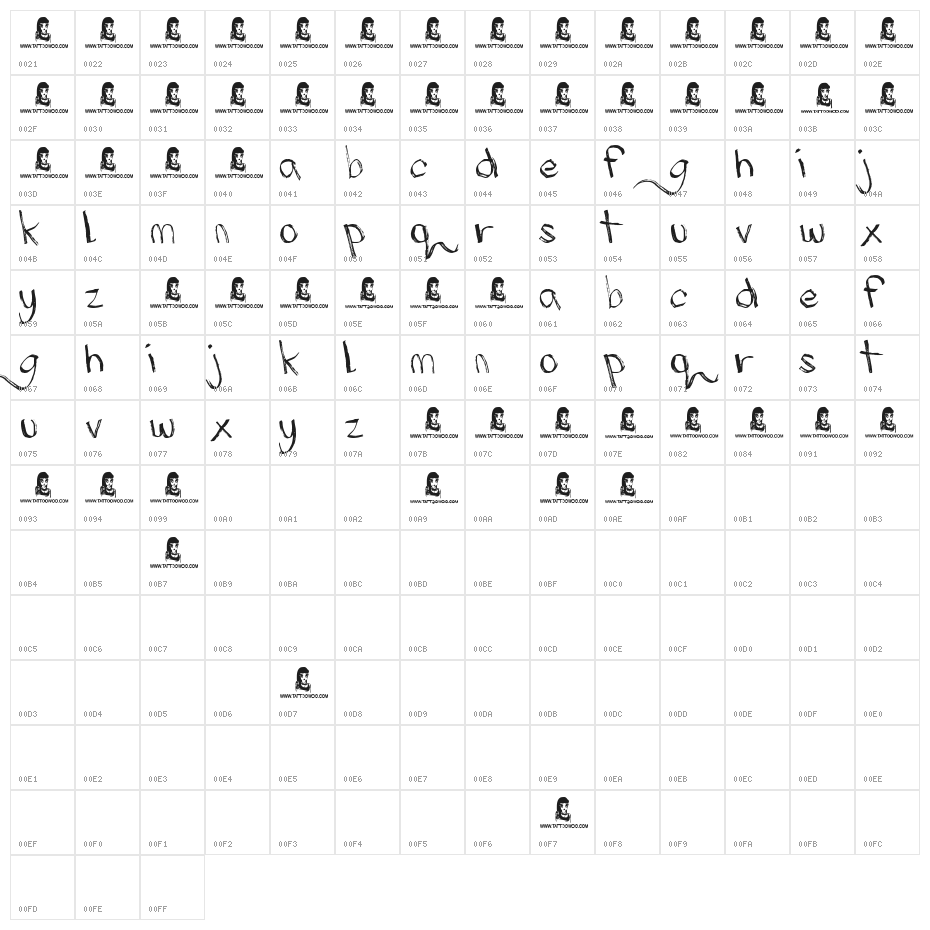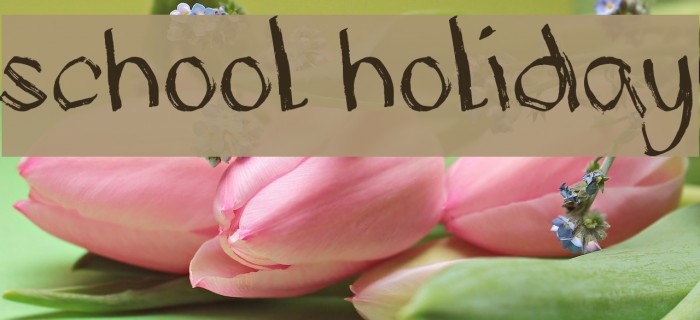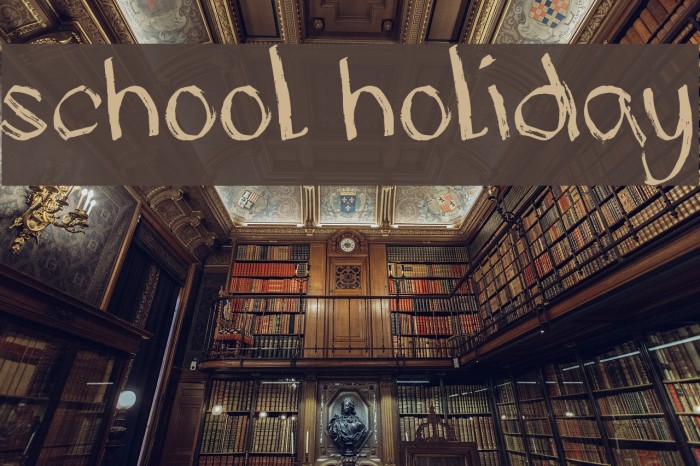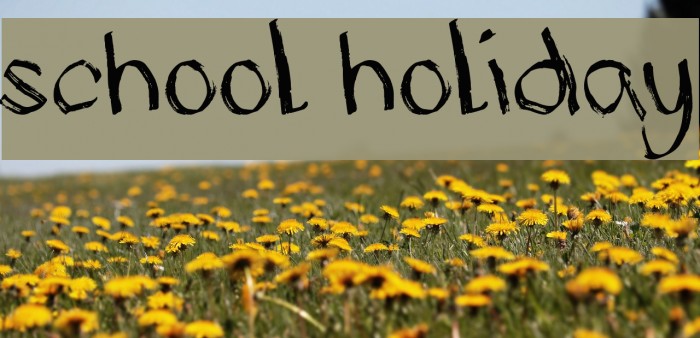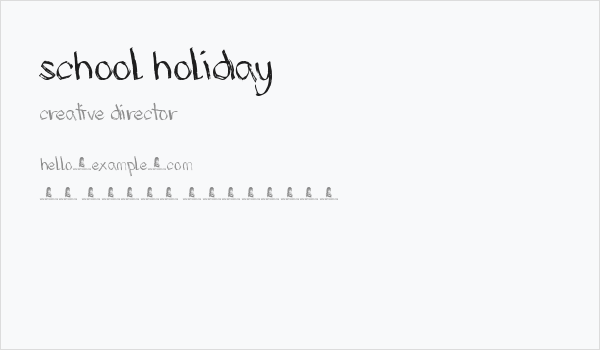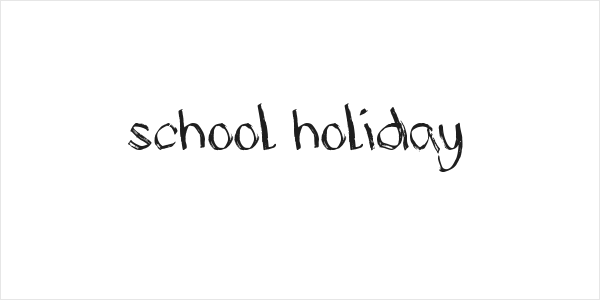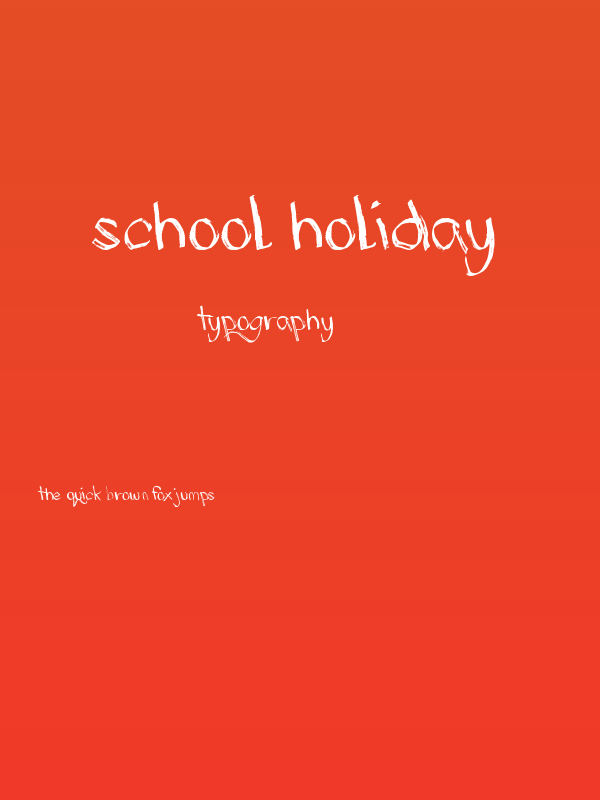
School Holiday Font
School Holiday Description
This font features a bold, expressive style with a hand-drawn appearance, characterized by uneven strokes and a playful, artistic flair. The letters have a rough texture, giving them a dynamic and energetic feel. The uppercase and lowercase letters maintain a consistent style, with some letters featuring unique flourishes that add to the font's whimsical nature. The overall design is reminiscent of brush strokes, making it suitable for creative and informal applications.
A bold, hand-drawn font with a playful, artistic style from Uncategorized fonts.
- Proposed Projects: Ideal for creative projects such as posters, invitations, and branding that require a personal and artistic touch.
- Use Case: Headlines, Logos, Creative projects